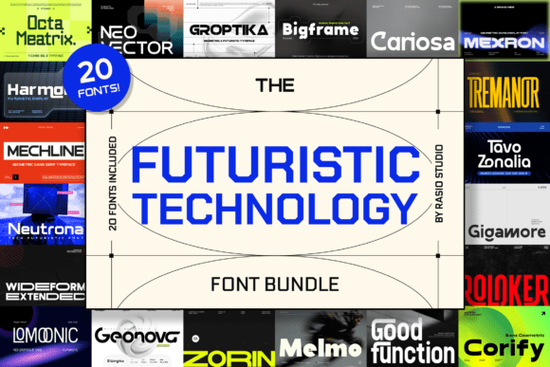
Designers often search for typography that communicates a specific vibe without adding unnecessary noise. If you are working on a project needing a sci-fi or modern tech look, the Futuristic Technology Bundle Font offers exactly that versatility. Created by Rasio Studio, this collection focuses on sleek geometry rather than decorative elements. It contains twenty typefaces designed to communicate speed and innovation. Whether you are making a logo for a software startup or printing a graphic tee for a gadget store, having the right file matters. You need to know where to download these files safely. Many platforms host user-uploaded fonts, so verifying the source ensures high resolution and proper licensing.
What projects suit these geometric typefaces?
Not every project needs heavy decoration. Some designs work better with clean lines and sharp angles. This bundle is optimized for screens and print. Digital interfaces benefit from legibility, even with stylized letters. Imagine a landing page for a new app; the buttons need to feel responsive. A sans-serif techno style helps users scan information quickly. For printed merchandise like stickers or mugs, these fonts render clearly without losing detail at smaller sizes. You should always test your preview before finalizing orders. Vector paths remain crisp at any scale, which saves money on reprints if you need larger formats later.
Color choice also plays a role with these structural characters. High contrast colors like neon blue against black backgrounds highlight the sharp corners effectively. Alternatively, a monochrome palette maintains readability on dark mode settings. Pairing this display font with a neutral body typeface balances the visual weight. Otherwise, the entire piece might feel aggressive or too cold for casual users. Consistency in kerning is key to professional output.